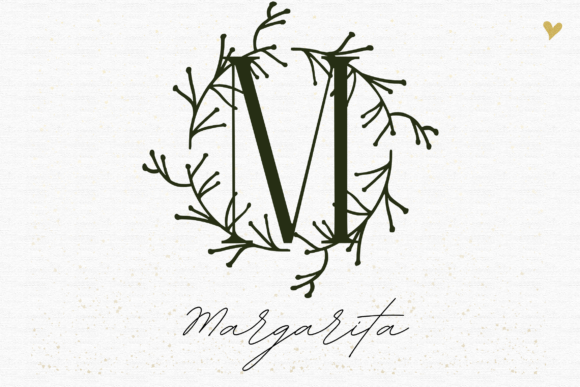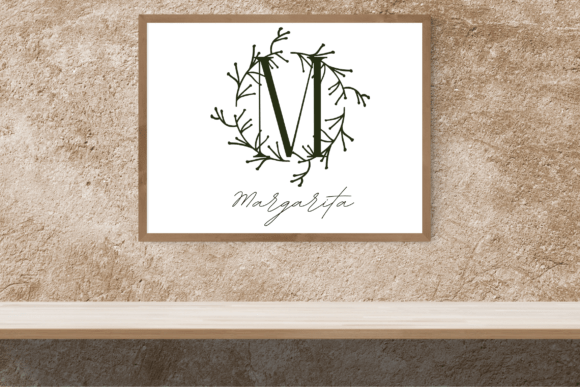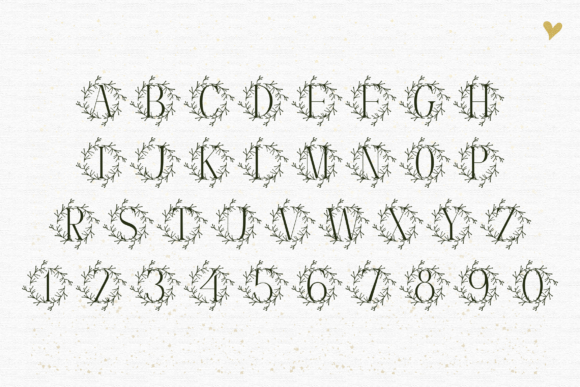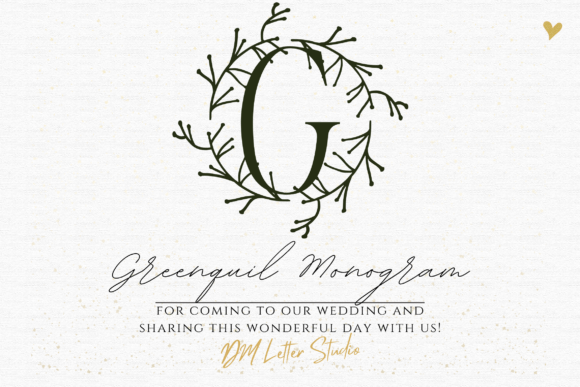
Introducing Greenquill Monogram Font: Elevate Your Designs with Timeless Elegance
In the world of typography, a well-crafted font can make all the difference in elevating your designs from ordinary to extraordinary. For designers and crafters seeking a unique and sophisticated touch, Greenquill Monogram Font is an exceptional choice. This refined serif monogram font combines delicate greenery and quill-like flourishes, perfect for adding a natural and elegant flair to various creative projects.
The Essence of Greenquill Monogram
Greenquill Monogram is a meticulously designed font that showcases a beautiful blend of traditional serif structure and organic elegance. Each uppercase letter is carefully crafted with intricate botanical details, resulting in a truly one-of-a-kind typographic experience. The font’s unique charm lies in its ability to seamlessly merge classic sophistication with a fresh, natural aesthetic.
Greenquill Monogram Font is an excellent choice for a variety of creative applications, including:
• Wedding Stationery: Add a touch of luxury and romance to wedding invitations, save-the-date cards, and other stationery with this exquisite font.
• Boutique Branding: Elevate your brand’s visual identity with Greenquill Monogram’s sophisticated and natural charm.
• Packaging: Make your product packaging stand out with a font that exudes elegance and refinement.
• Personalized Projects: Use Greenquill Monogram to add a personal touch to gifts, labels, and other customized items.
Key Features of Greenquill Monogram
The Greenquill Monogram Font boasts several key features that make it an exceptional choice for designers and crafters:
• Refined Serif Structure: A classic serif design provides a timeless foundation for the font.
• Delicate Greenery and Quill-like Flourishes: Intricate botanical details add a touch of natural elegance.
• Uppercase Letters: Each uppercase letter is carefully designed with unique botanical elements.
• Mix of Timeless and Organic Elements: Greenquill Monogram seamlessly blends classic sophistication with a fresh, natural aesthetic.
Why Choose Greenquill Monogram?
With Greenquill Monogram Font, you can:
• Elevate Your Designs: Add a touch of sophistication and elegance to your creative projects.
• Stand Out from the Crowd: Use a unique and distinctive font that sets your designs apart.
• Save Time: Greenquill Monogram’s versatility and ease of use make it perfect for a wide range of applications.
Tips for Using Greenquill Monogram
To get the most out of Greenquill Monogram Font, consider the following tips:
• Pair with Neutral Backgrounds: Allow the font’s intricate details to take center stage by pairing it with neutral backgrounds.
• Experiment with Colors: Try pairing Greenquill Monogram with a range of colors to find the perfect combination for your design.
• Use for Headings and Titles: Greenquill Monogram’s elegant design makes it perfect for headings and titles.
In conclusion, Greenquill Monogram Font is an exceptional choice for designers and crafters seeking to add a touch of sophistication and natural elegance to their creative projects. With its refined serif structure, delicate greenery, and quill-like flourishes, this font is sure to elevate your designs and set them apart from the crowd.